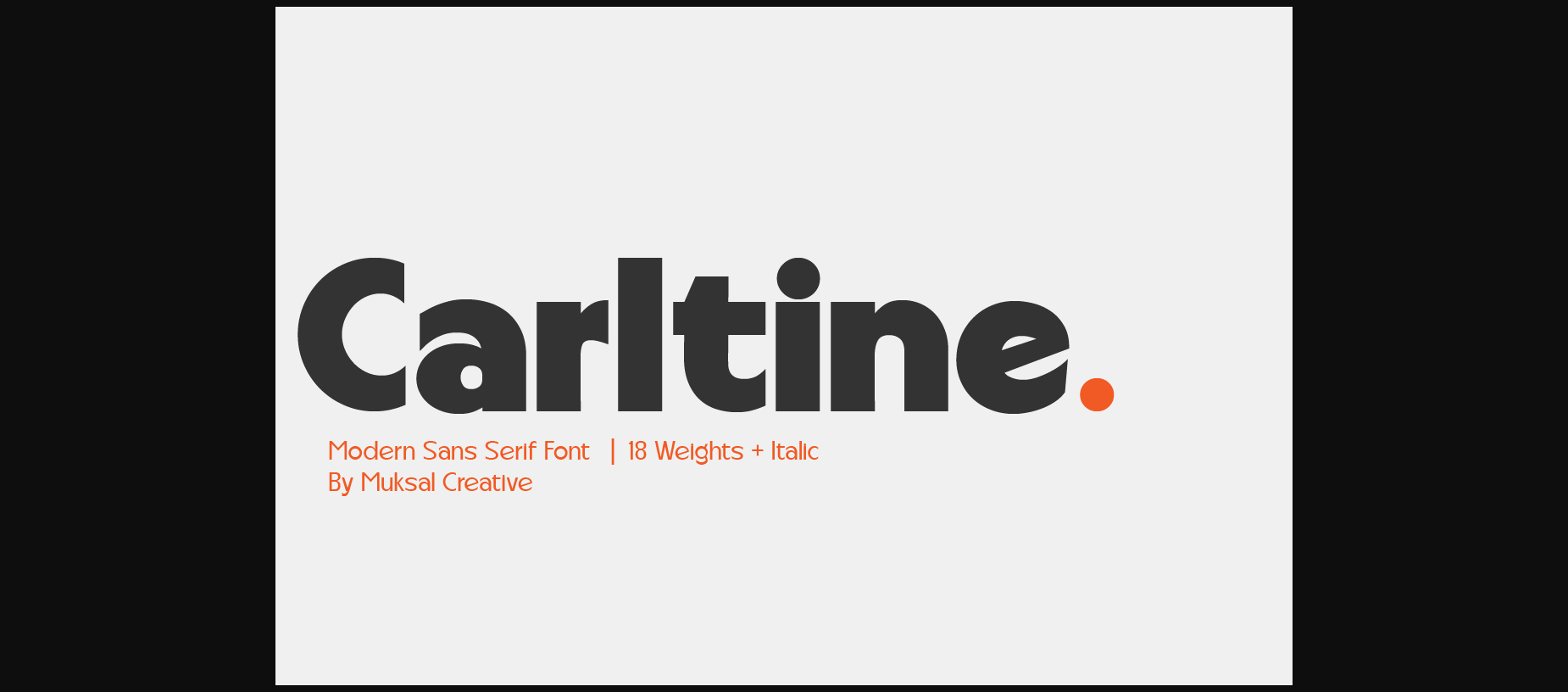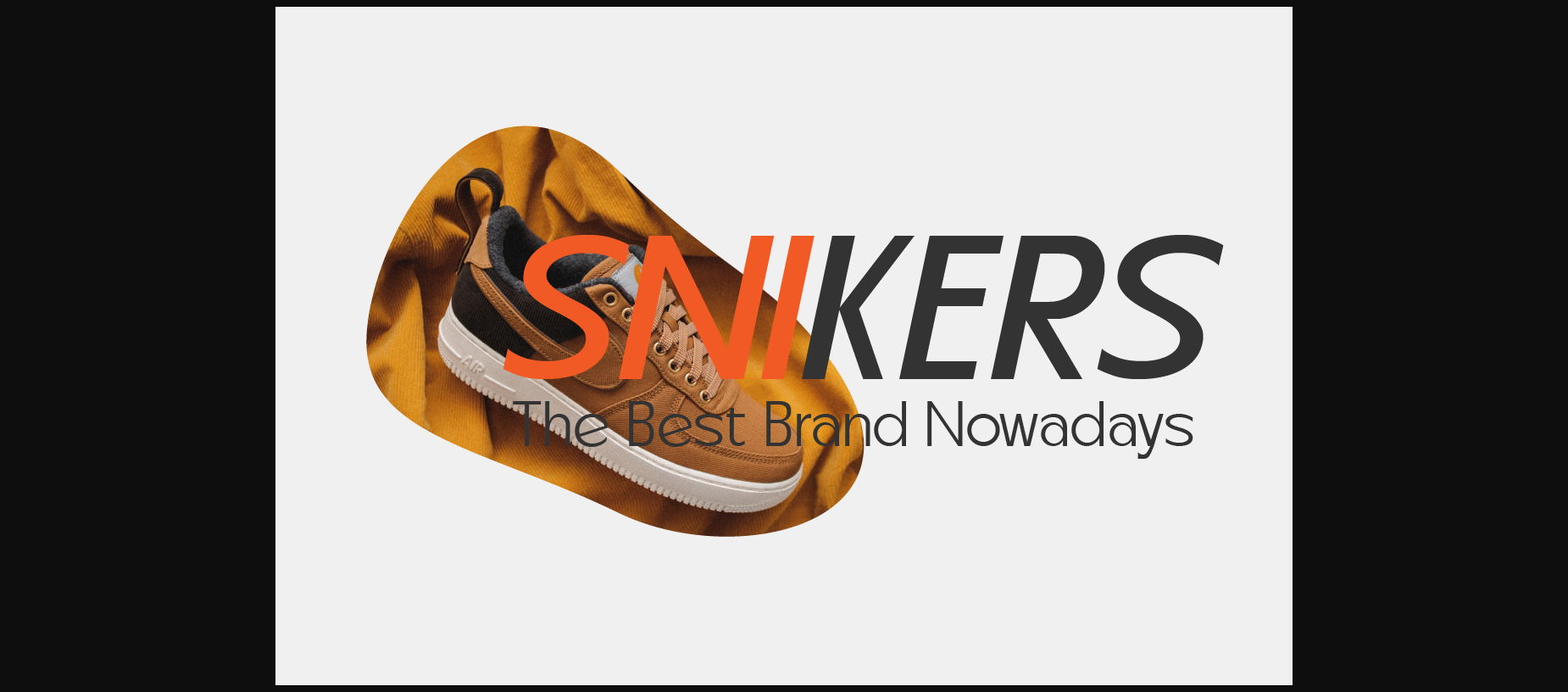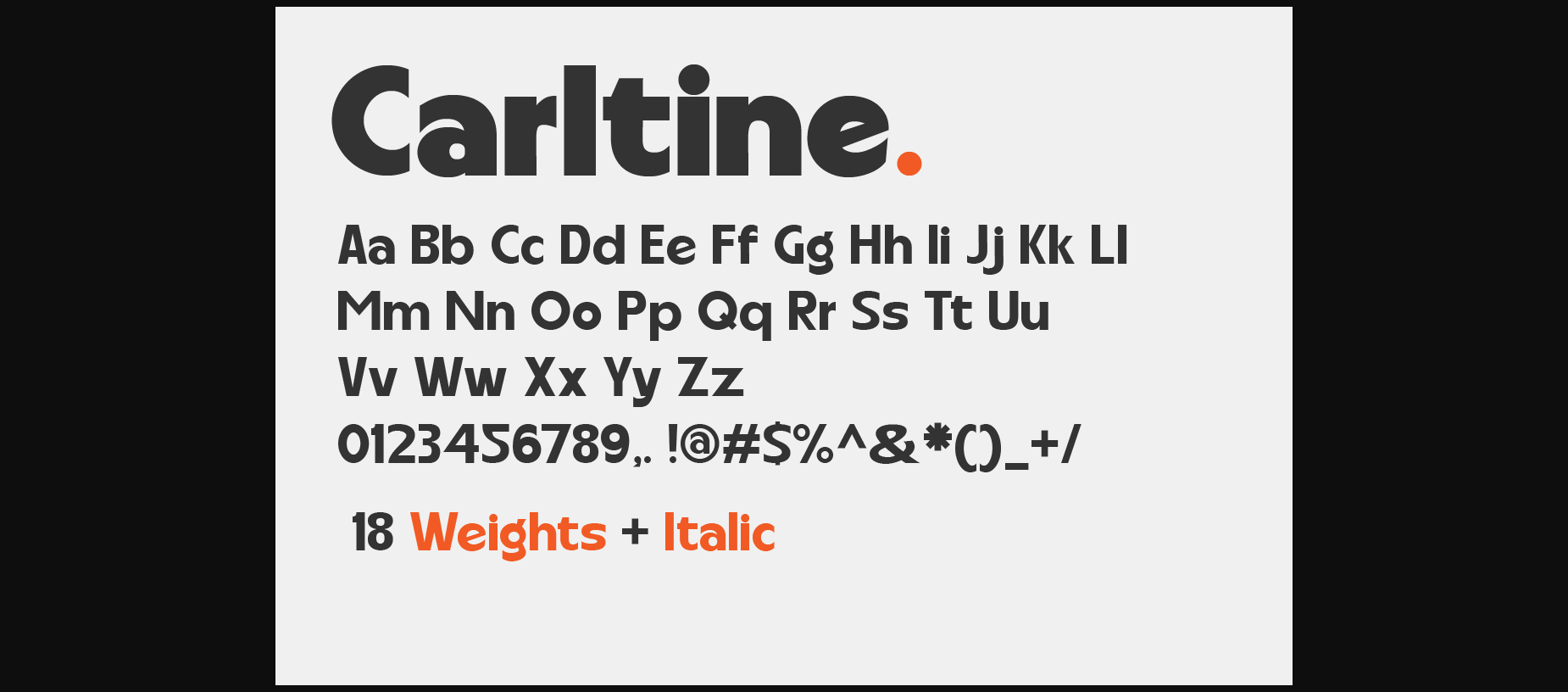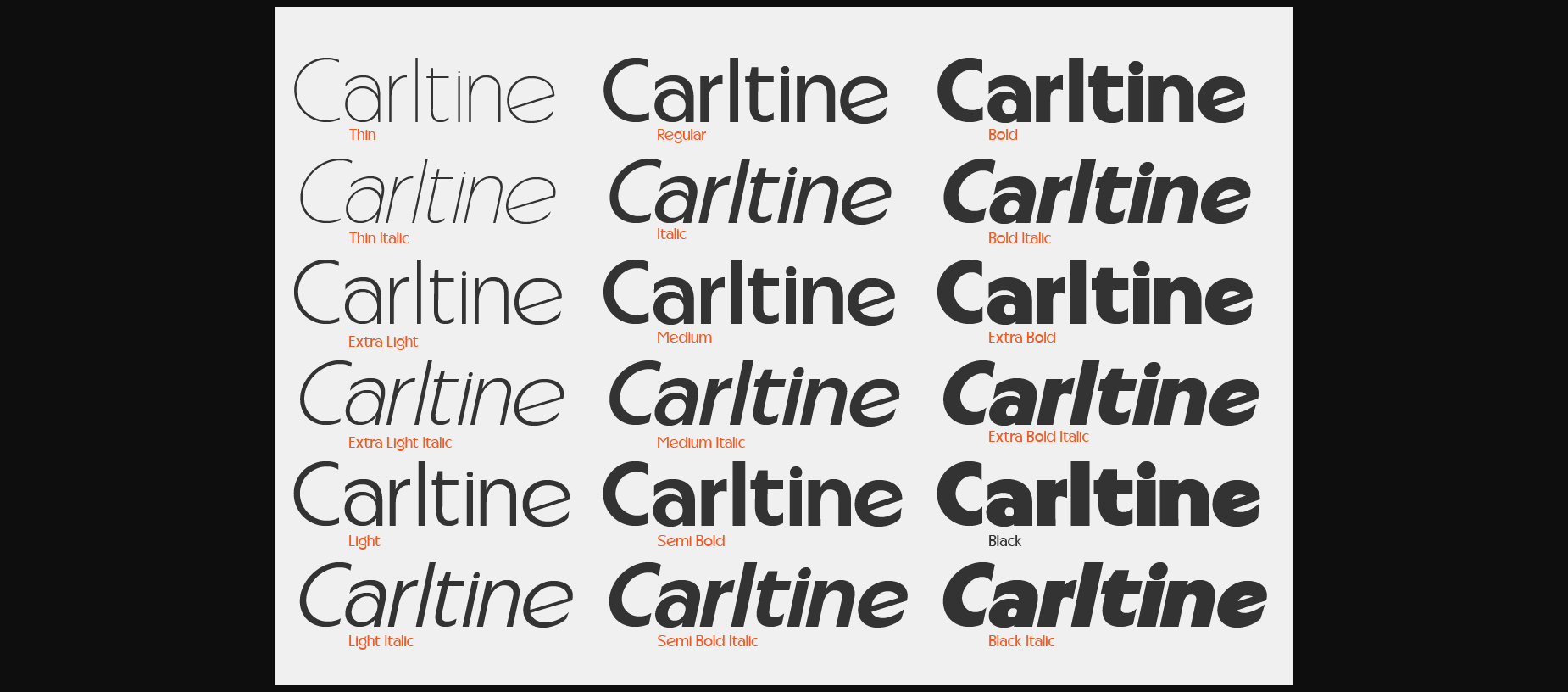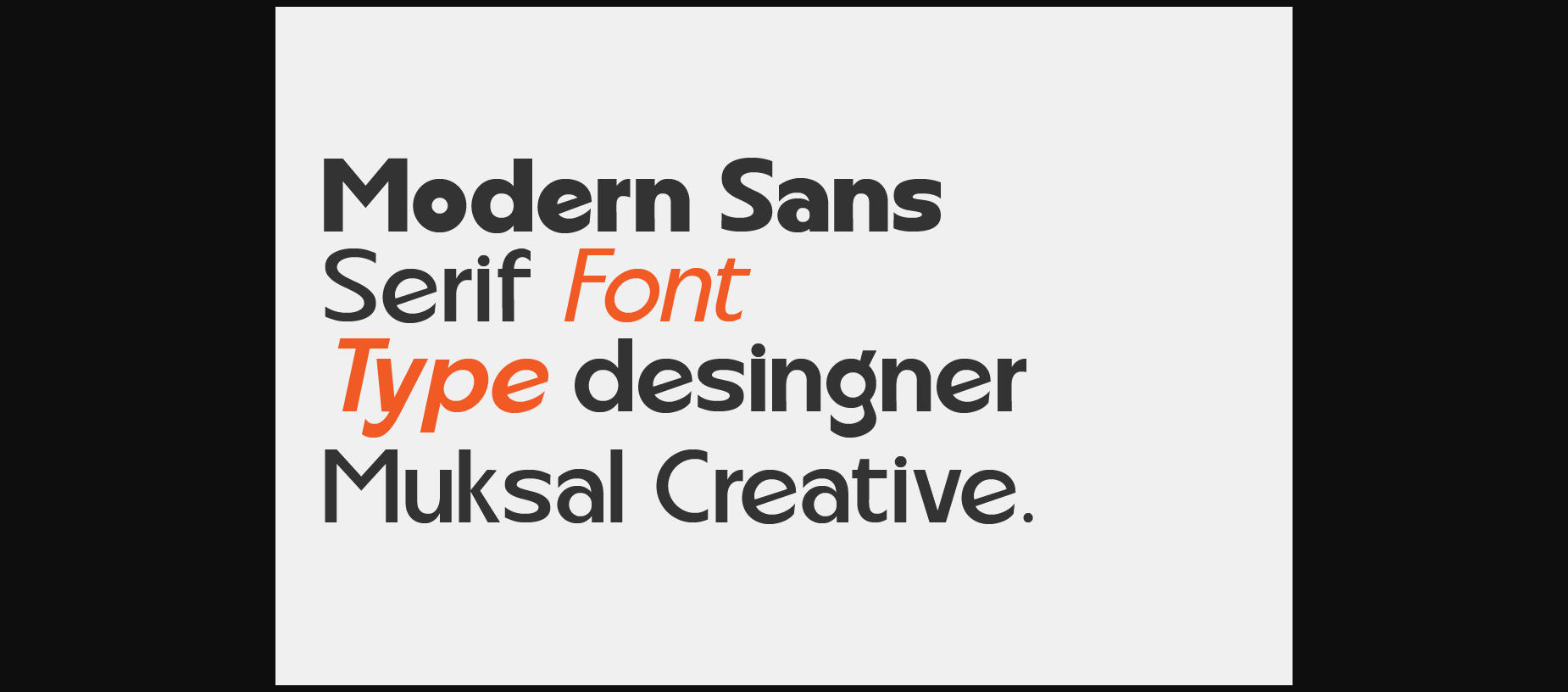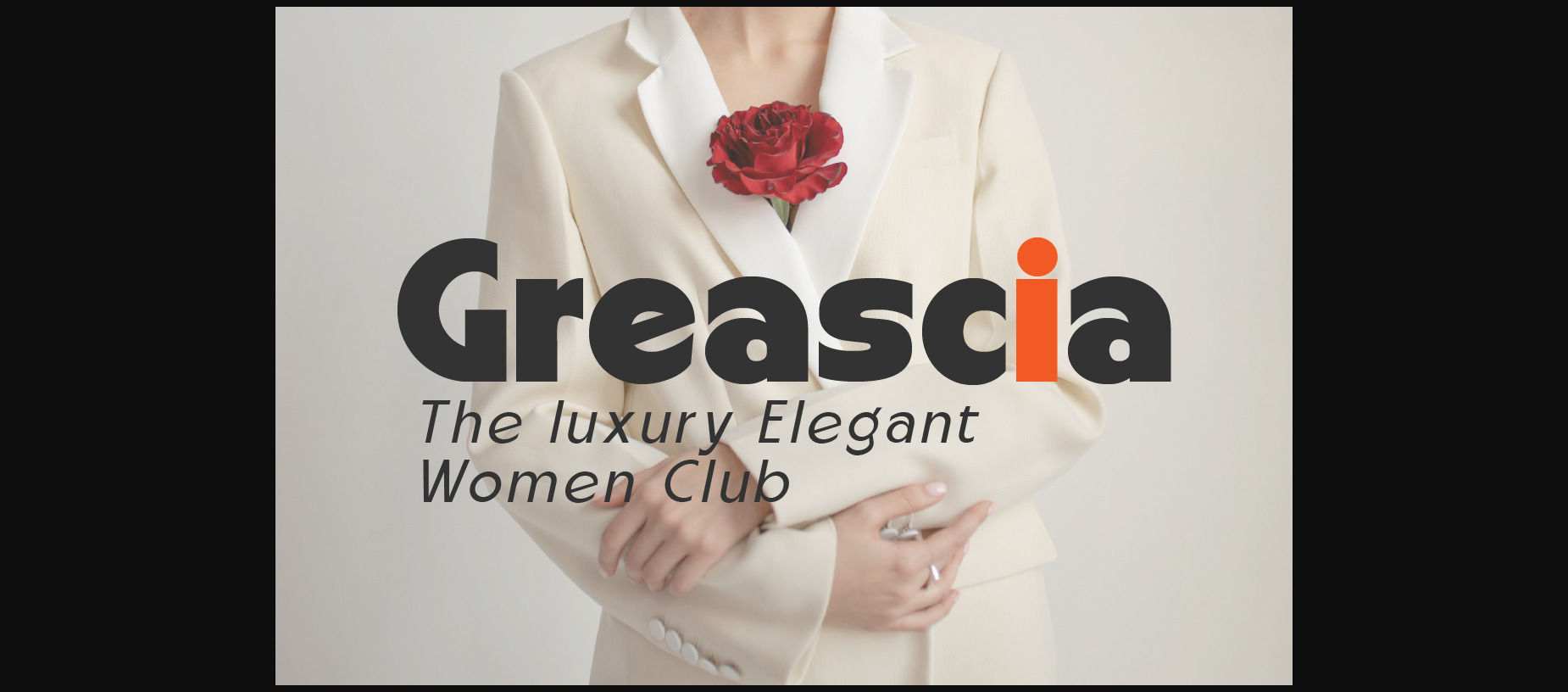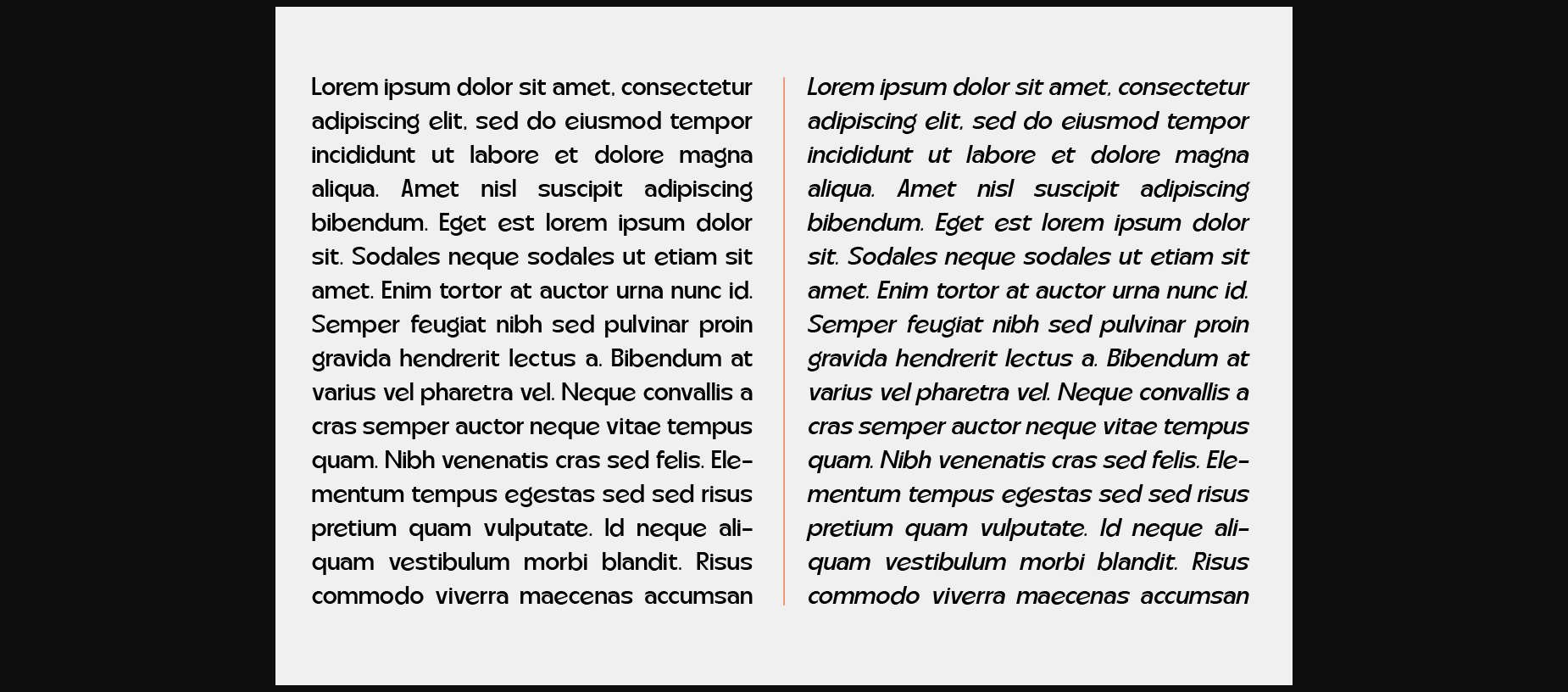
Carltine Font
About Carltine Font
Carltine is a bold and assertive serif font. No matter the topic, this font will be an incredible asset to your fonts’ library, as it has the potential to elevate any creation.